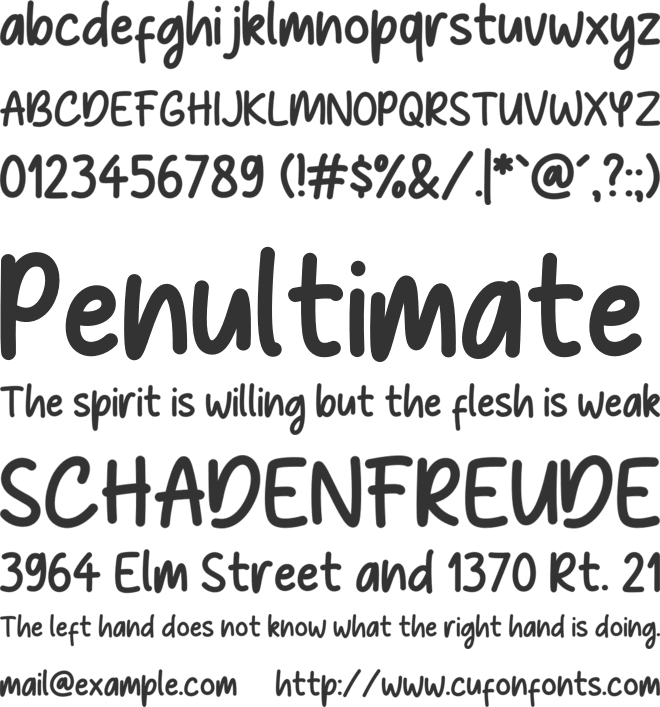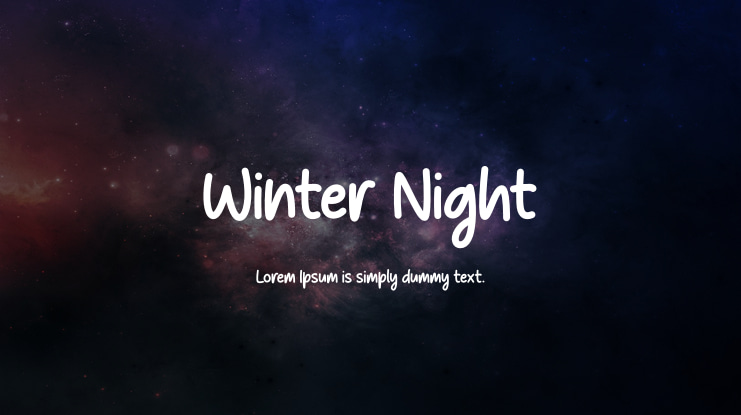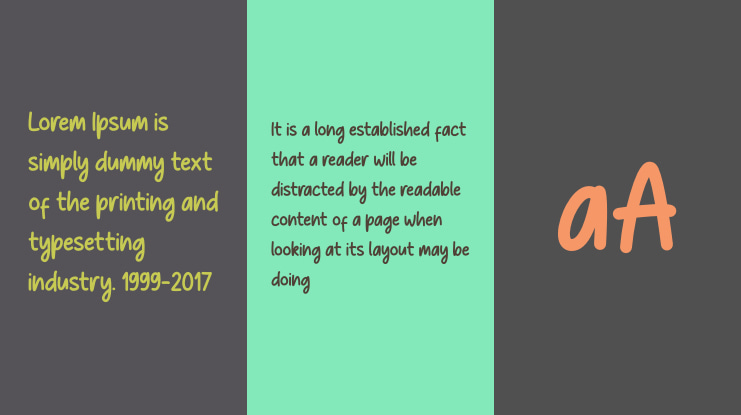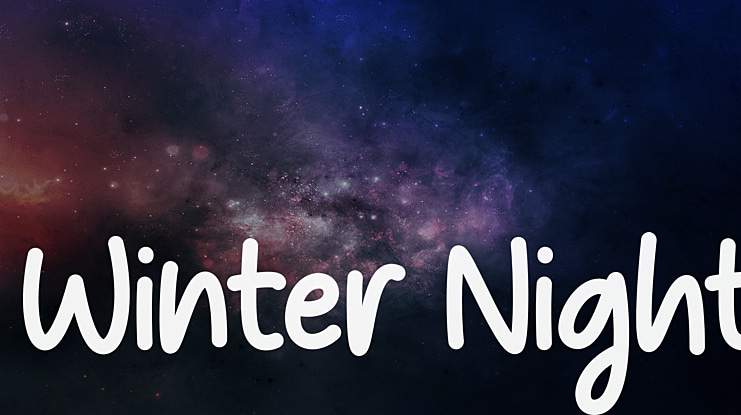
Winter Night Font
Winter Night is a cute, handwritten font made with a creative twist. Winter Night goes well with many designs with its aesthetic sense. You can beautify your web designs, print designs like wedding invitations, make social media posts more attractive, and make cute greeting cards.